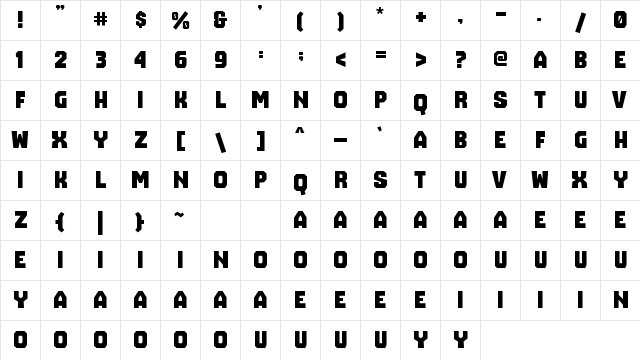
The Bomb Sound Regular
| Designer | Sahirul |
Design Context for The Bomb Sound Typeface
The Bomb Sound is a composed and adaptable typeface that performs quietly and consistently across a wide range of design contexts.